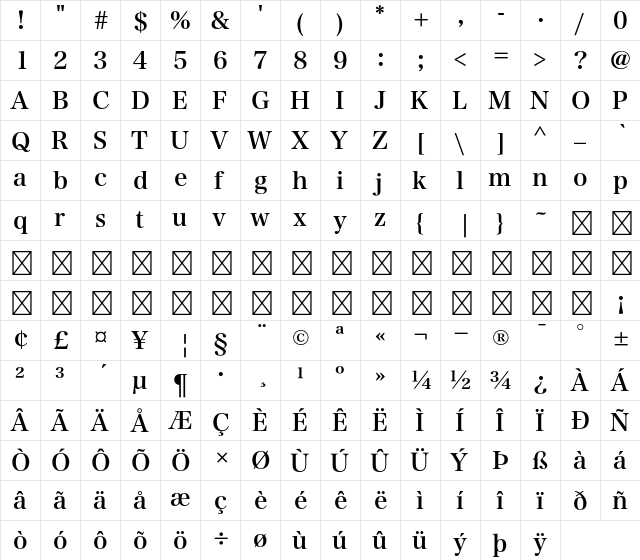
Hiragino Mincho Pro W6
| Foundry | Dainippon Screen Mfg. Co., Ltd. |
| Designer | JIYUKOBO Ltd. |
Design Context for Hiragino Mincho Pro Typeface
Hiragino Mincho Pro takes a measured approach to typography — its balanced proportions and neutral character make it a reliable workhorse for both digital and print work.